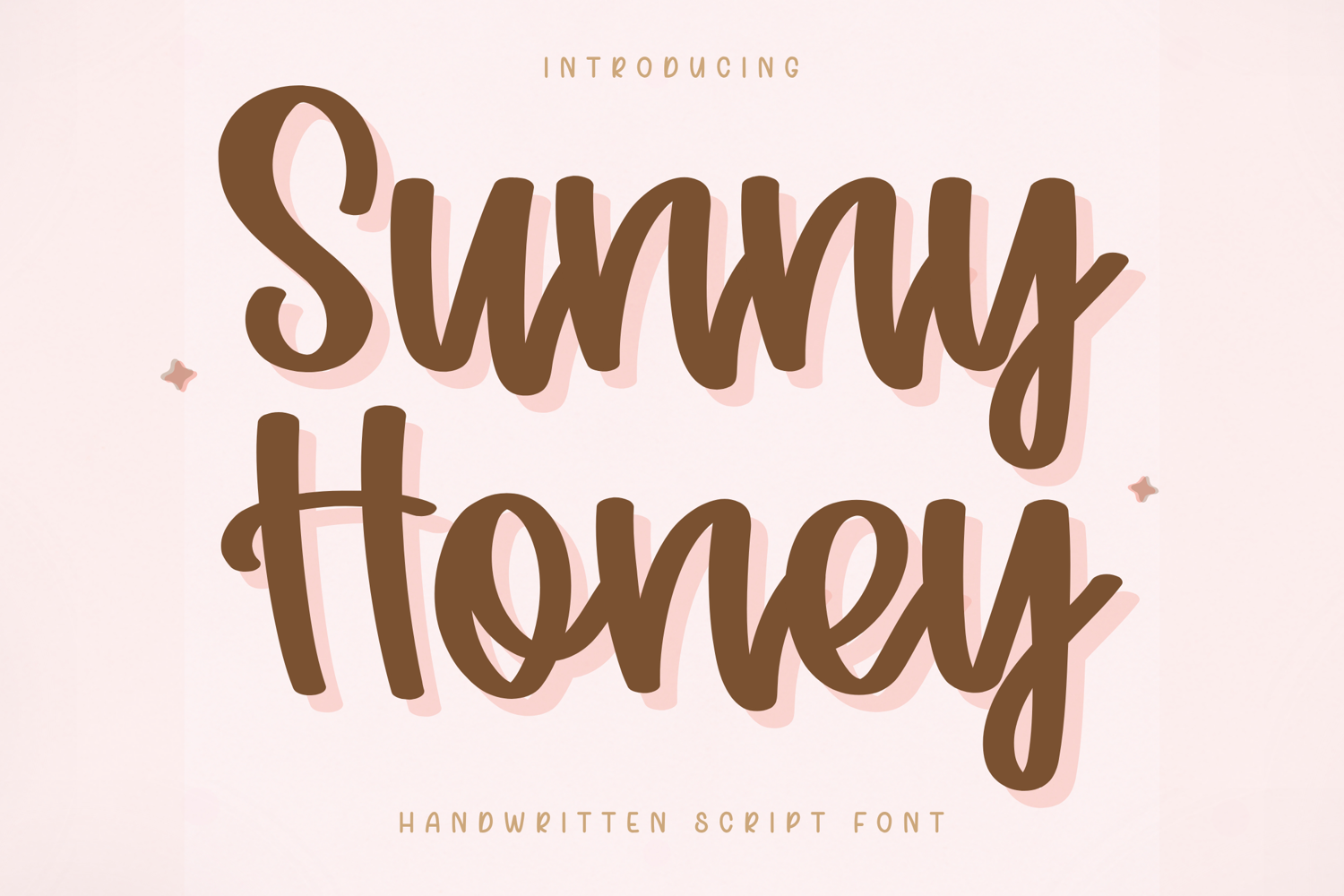
Sunny Honey - Handwritten Script Font
Sunny Honey – Handwritten Script Font
Sunny Honey is a cute and cheerful handwritten script font designed to bring a warm and joyful feel to your creative projects. With its soft curves and slightly bouncy letterforms, this font creates a natural handwritten look while maintaining excellent readability.
Thoughtfully crafted for versatility, Sunny Honey works beautifully across a wide range of applications—from Cricut cutting projects to digital planners, branding, and social media design. Its smooth and clean strokes ensure consistent results for both writing and cutting, making it perfect for everyday creative use.
Sunny Honey is designed with smooth, rounded strokes and balanced spacing, making it easy to use for both beginners and professional designers.